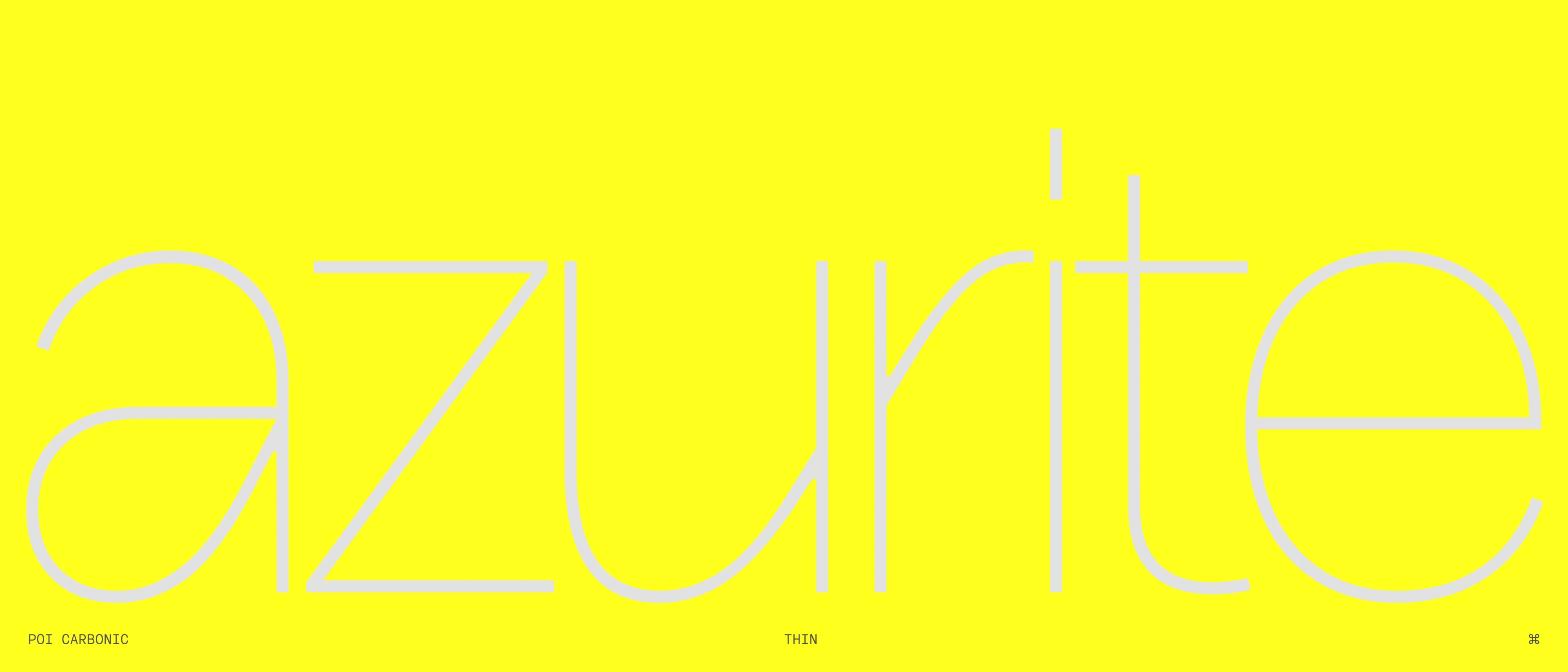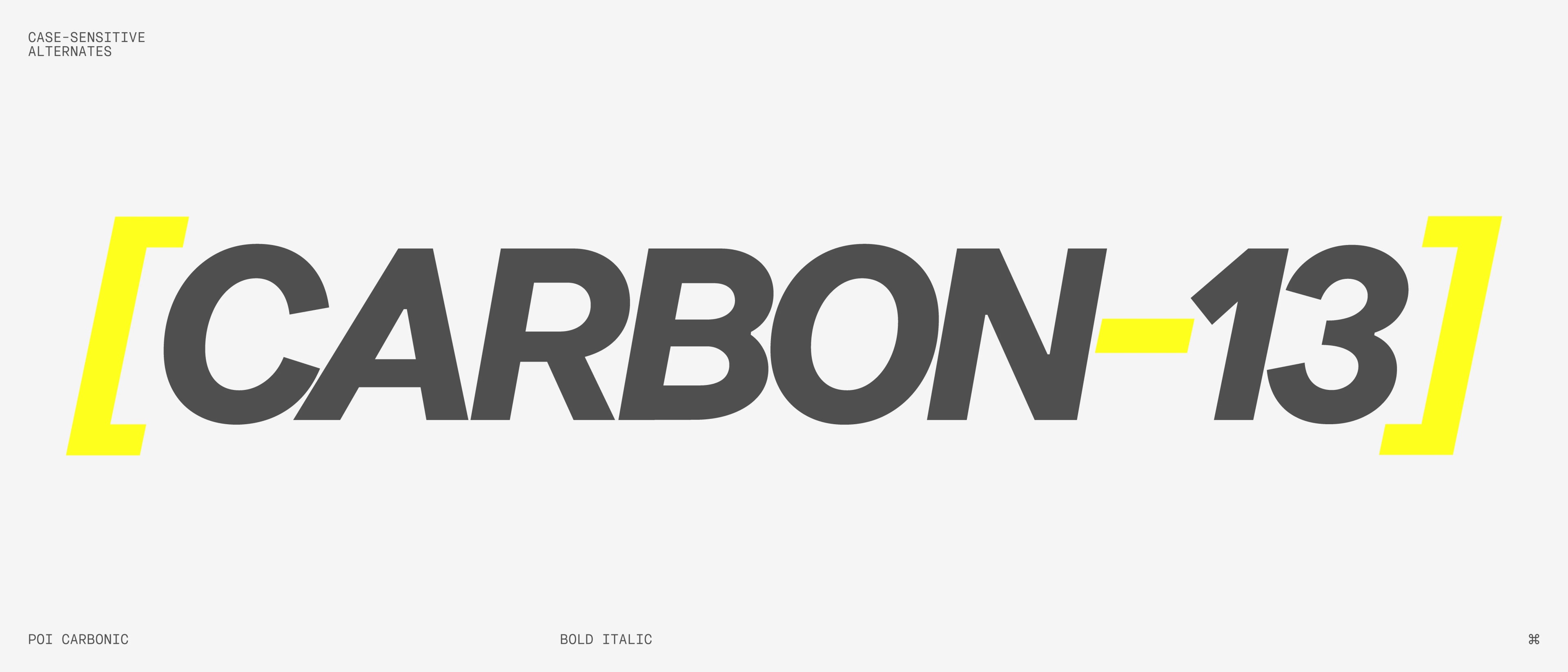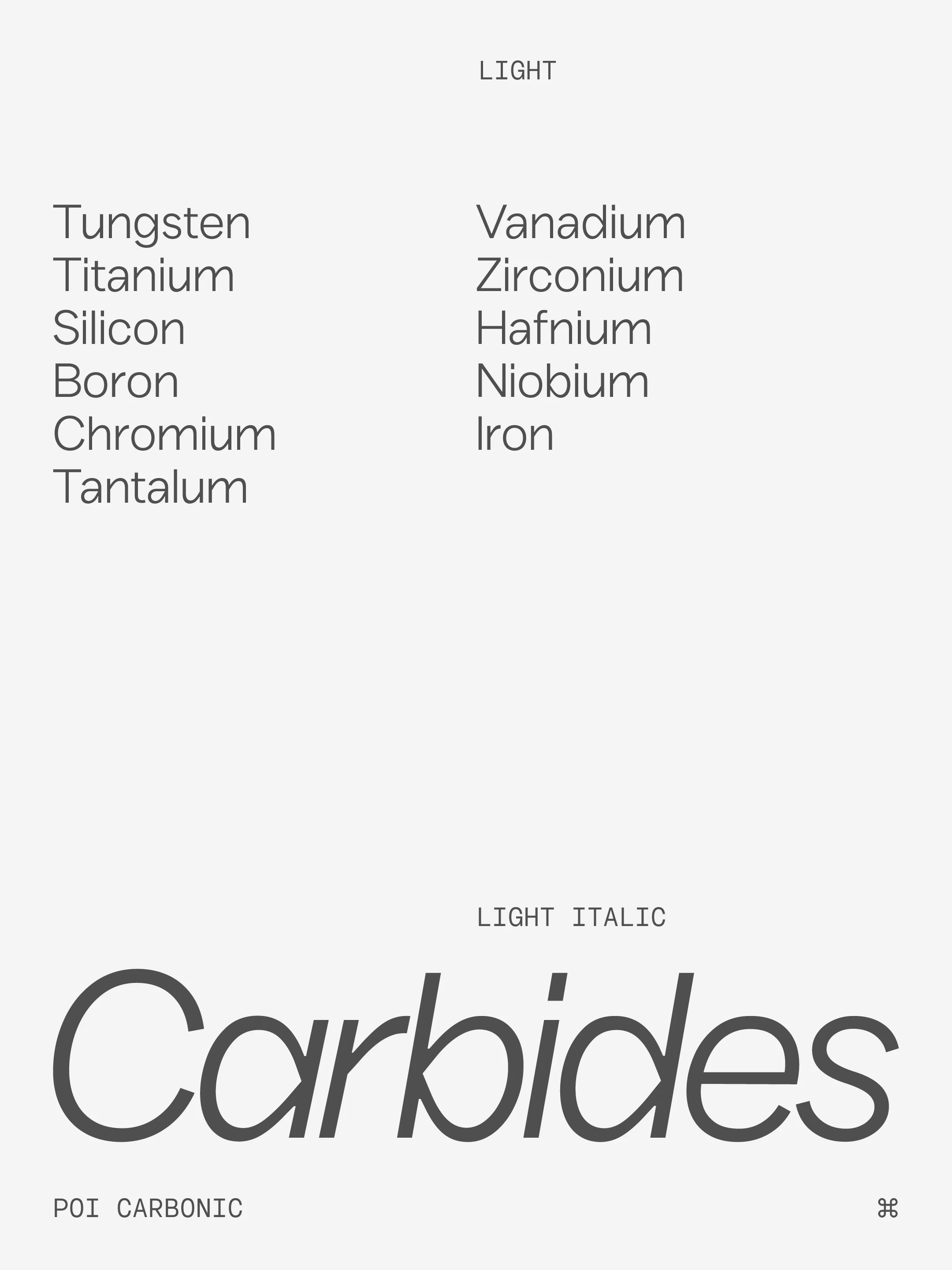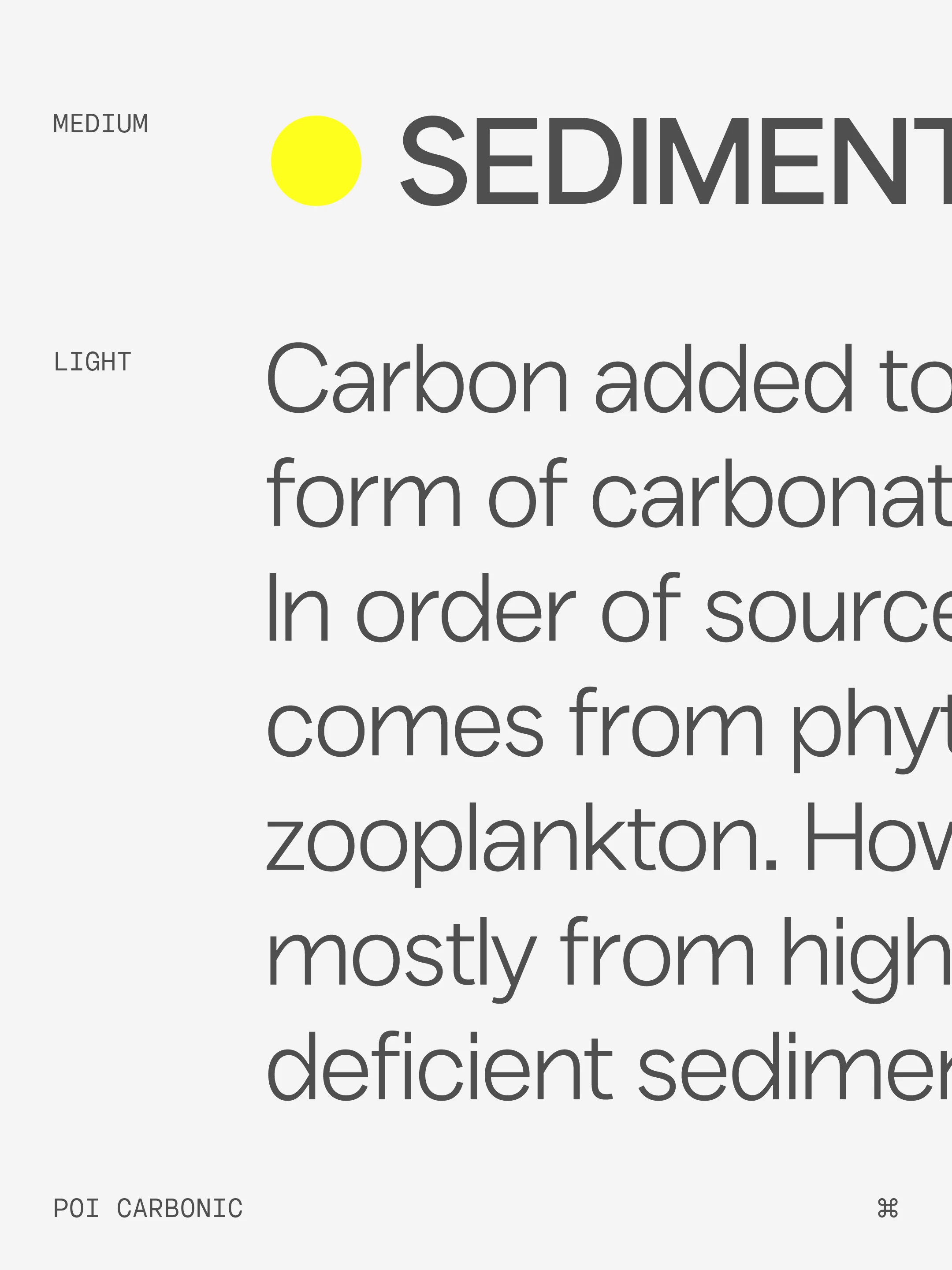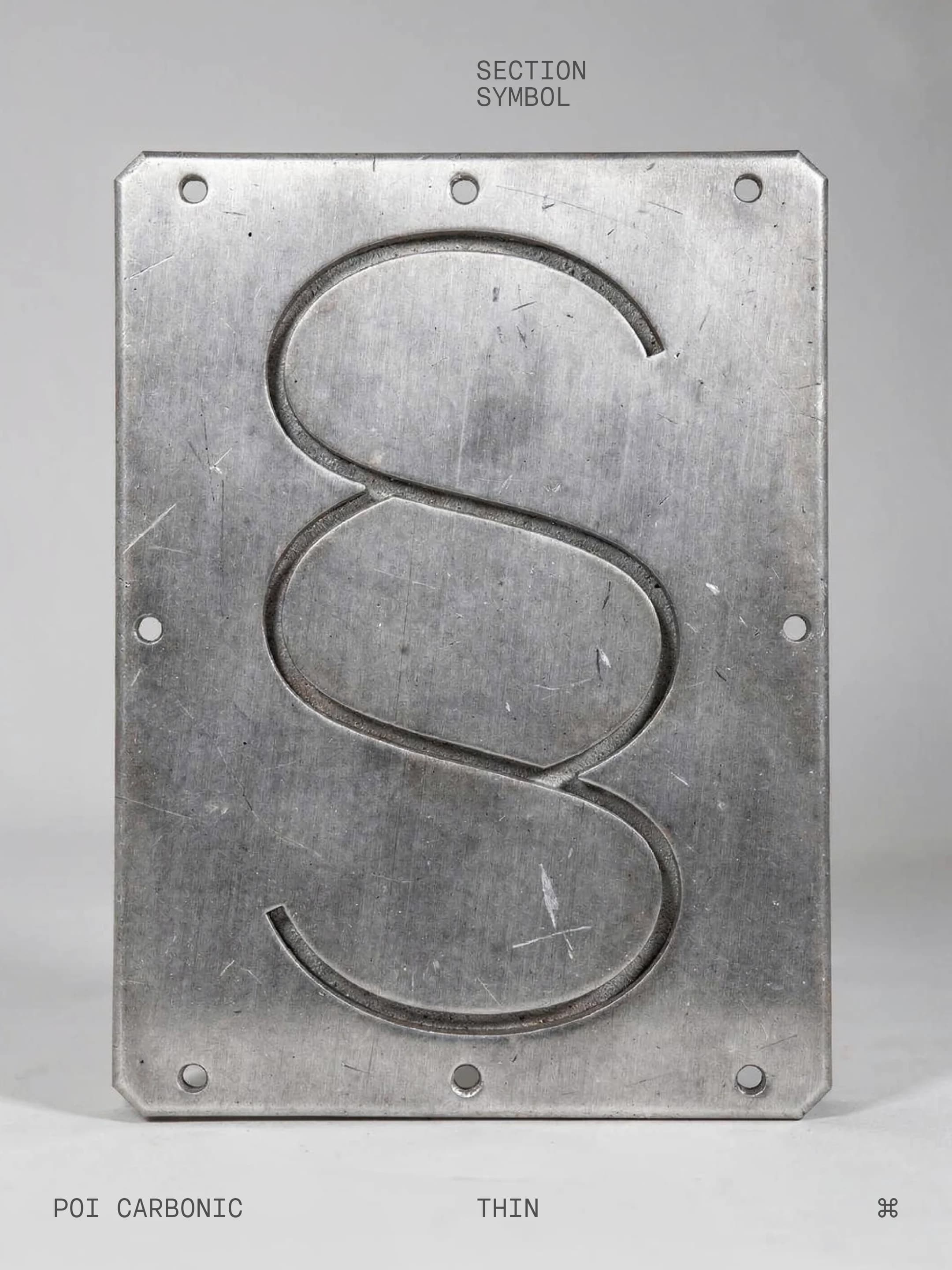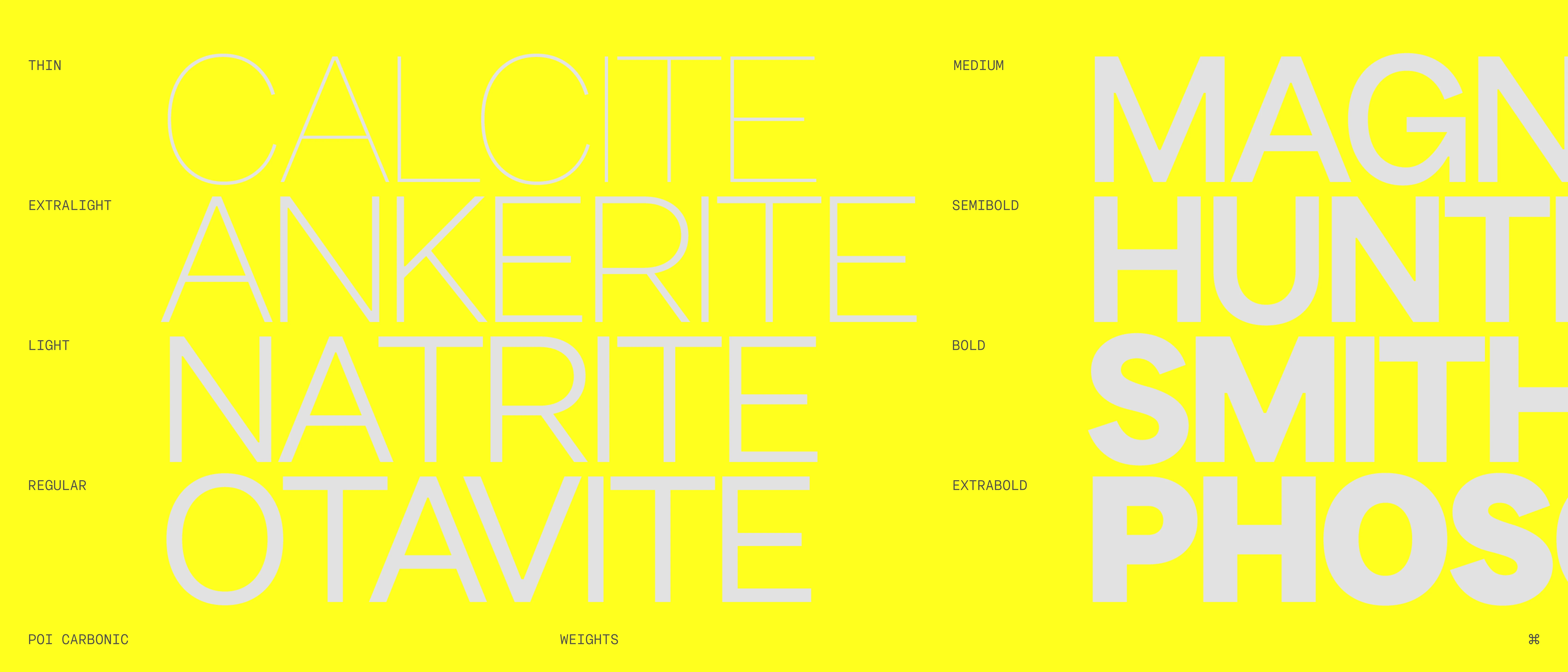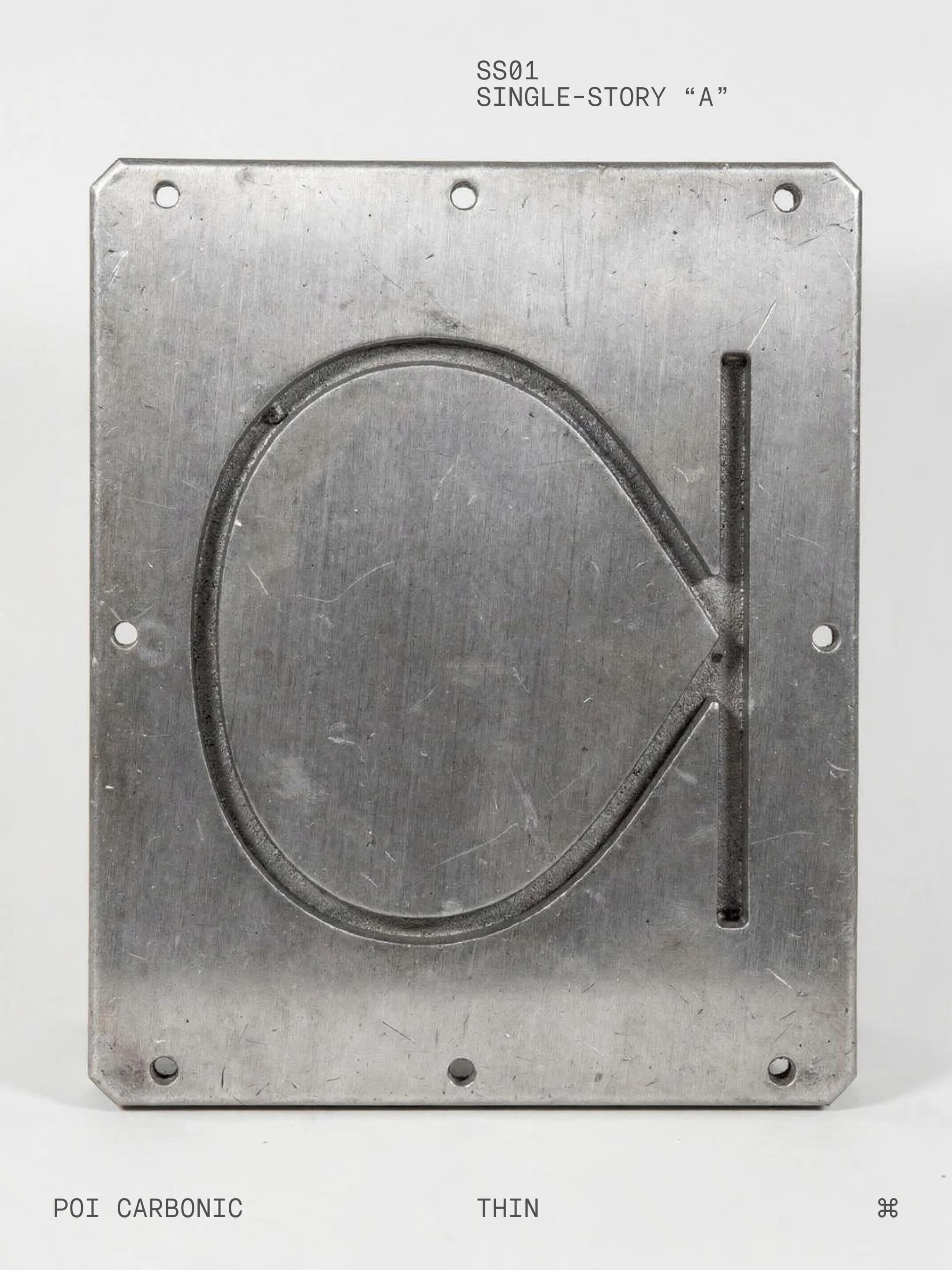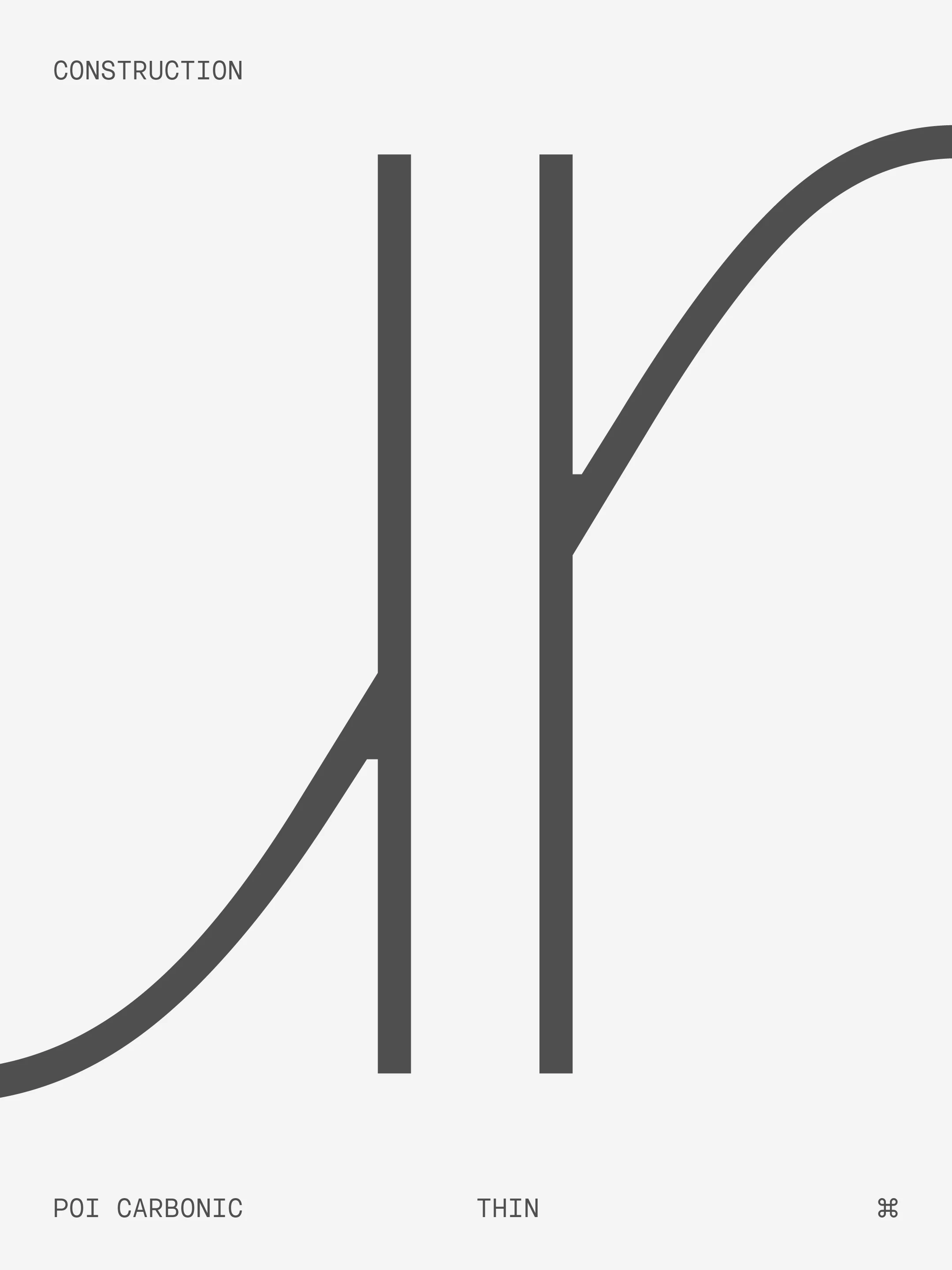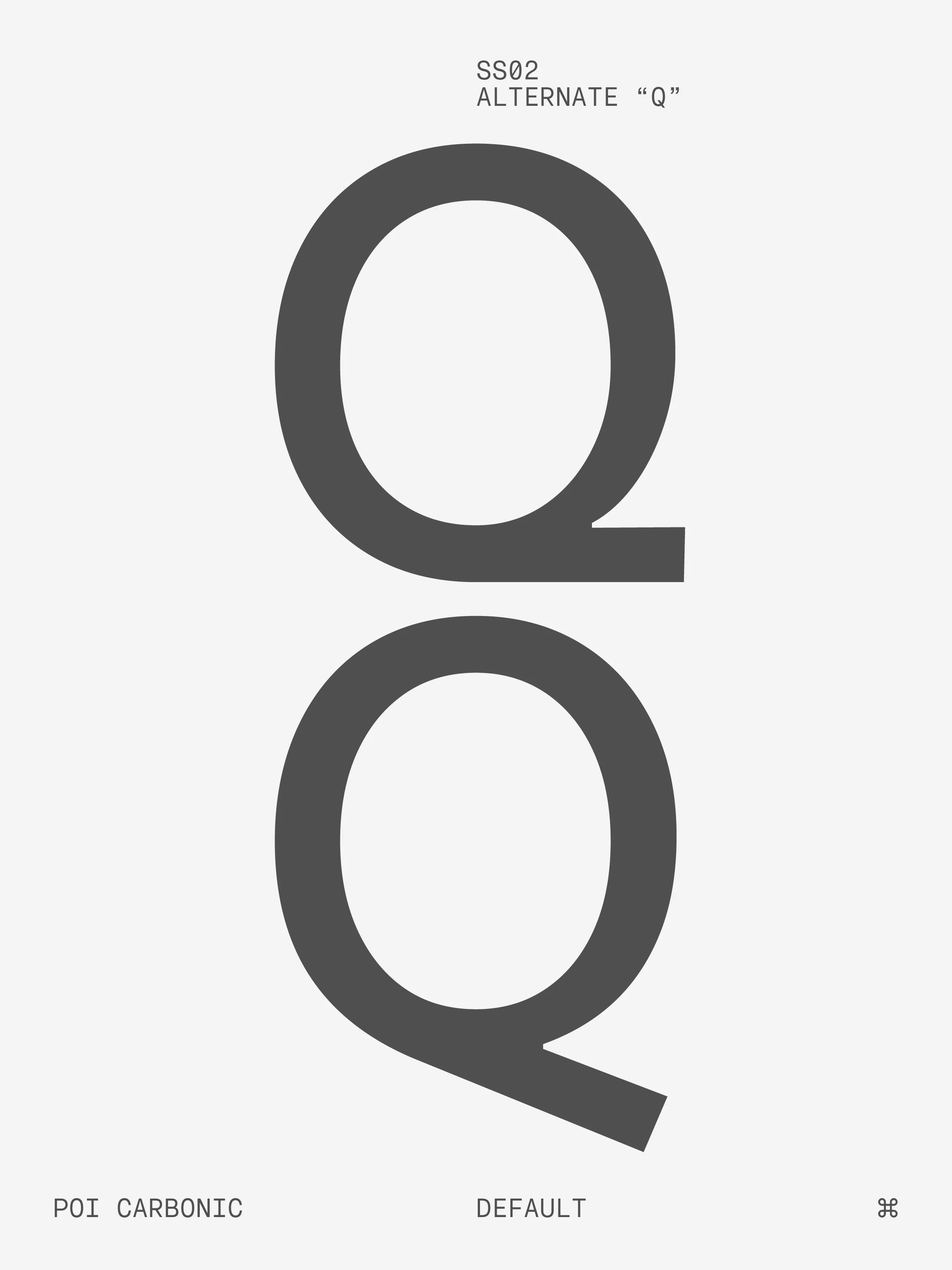
Carbonic
A contemporary sans serif that walks the line between genres, melding the unconventional with the futuristic. Its inktraps take influence from tack welding, a process where two pieces are temporarily joined before being permanently fused. Industrial and tech-forward, Carbonic emphasizes short messages that share its non-conformist character.
Carbonic features